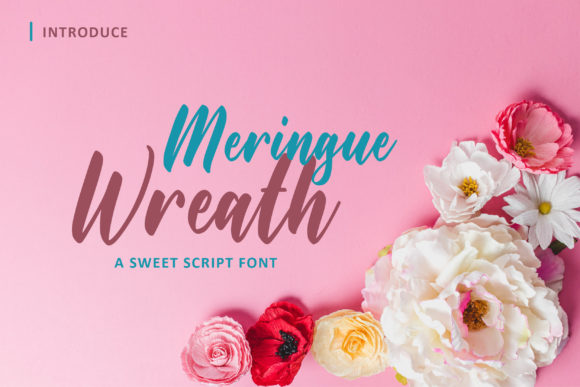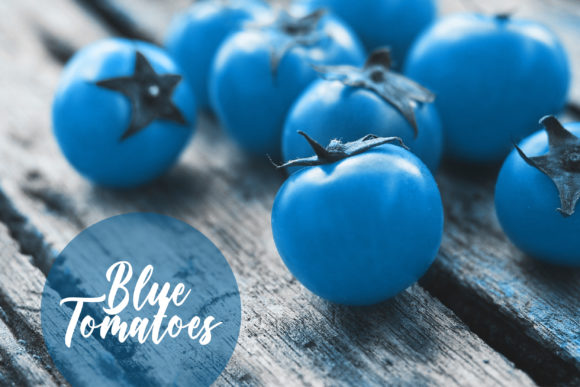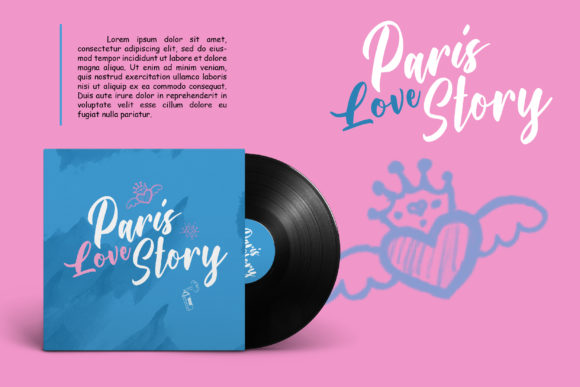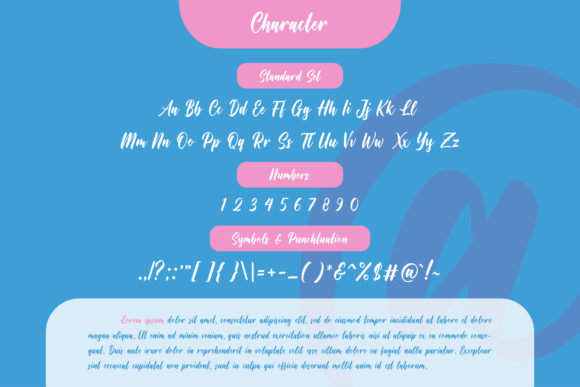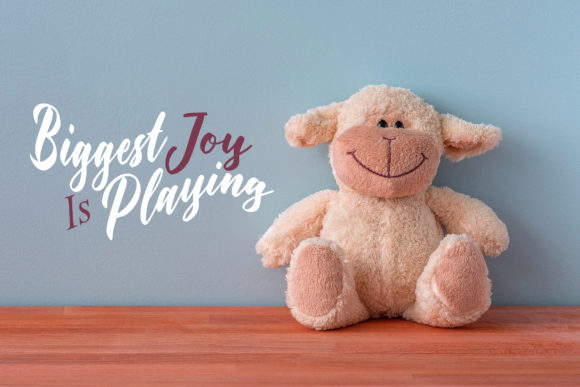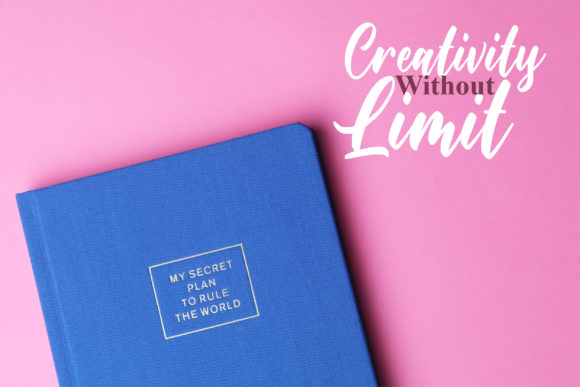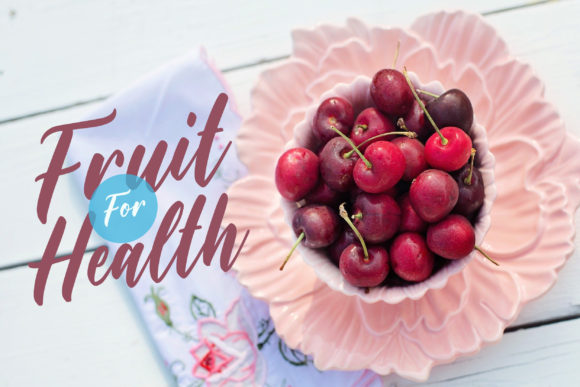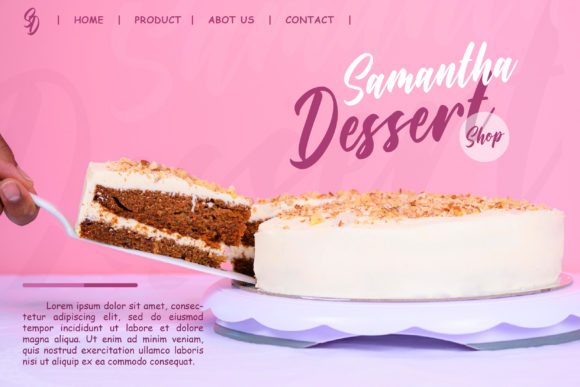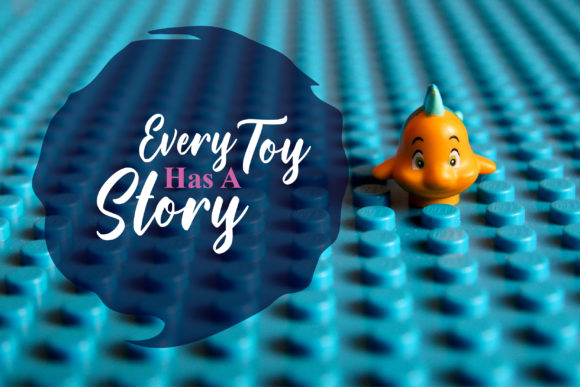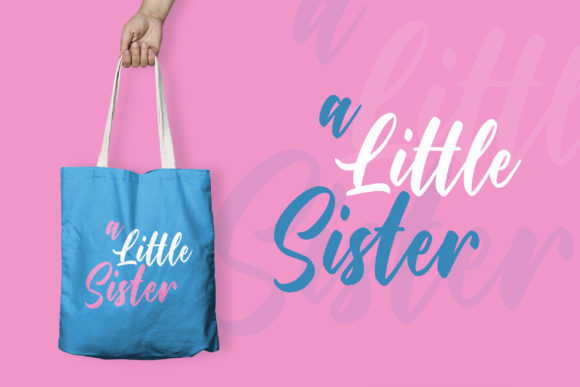
Maringue Wreath Font
About Maringue Wreath Font
Maringue Wreath is an incredibly beautiful script font. It has a classy, elegant, and modern look which can be used for logos, branding, invitations, stationery, wedding designs, social media posts, and much more!